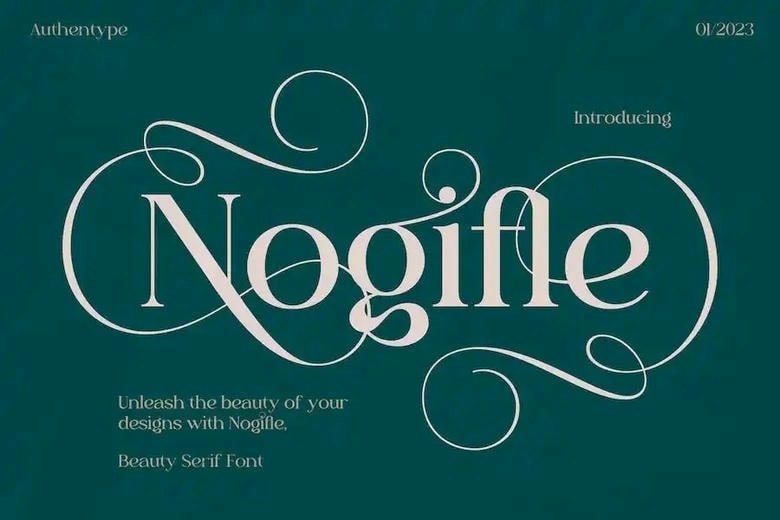
Nogifle Font
Nogifle Font can offer aesthetics into your designs through beautiful and elegant serif typography with ligatures and different possessing variations. Nogifle offers flowing serifs that are very similar to those of script fonts that allow it to give the text a more delicate and individual look; in addition, the incredible indents of the font will make it possible to transform any uninteresting typography into a bold one. Nogifle will help to breathe and improve designs!
Nogifle Serif Font